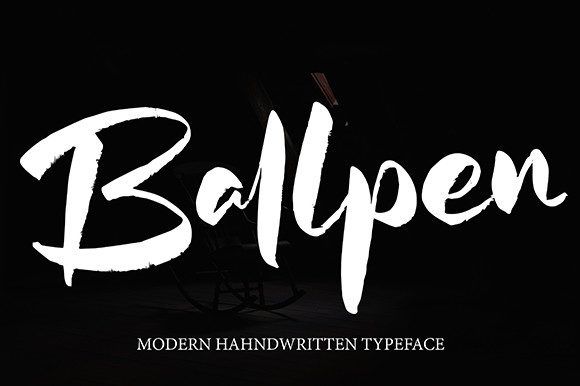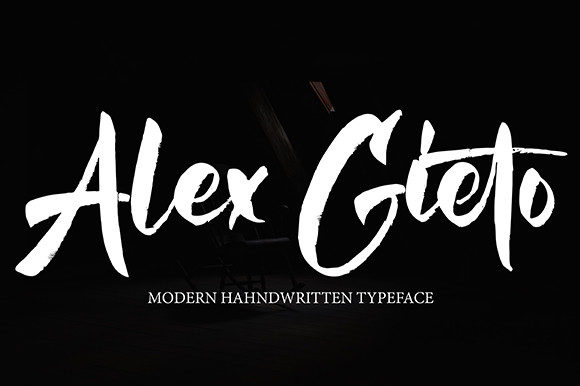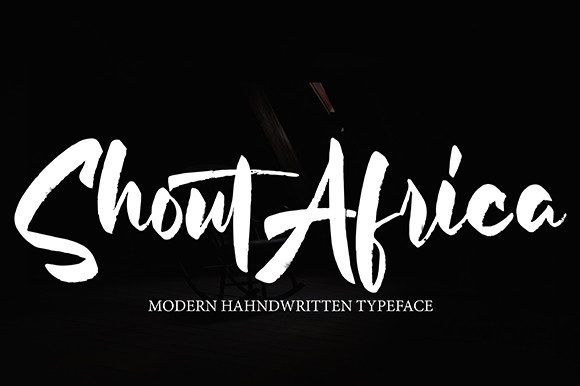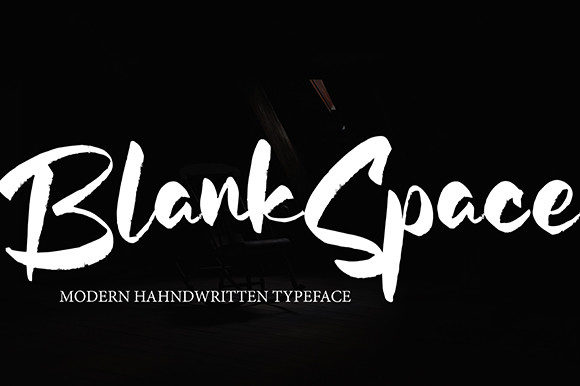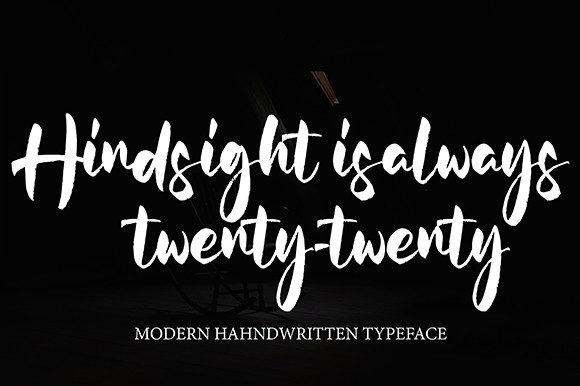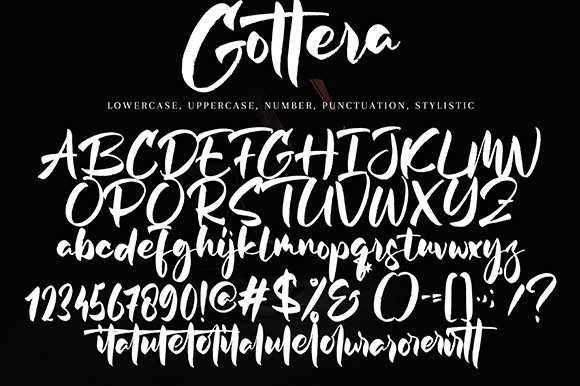
Introducing Gottera Font: The Ultimate Choice for Designers and Crafters
Are you tired of using the same old fonts in your designs? Look no further than Gottera Font, a cool, brushed, and trendy handwritten font that’s sure to take your creations to the next level. With its strong, confident, and dynamic style, Gottera Font is the perfect choice for designers and crafters looking to add a touch of personality to their work.
What Makes Gottera Font So Special?
Gottera Font is a unique and stylish font that’s designed to make a statement. Its brushed texture gives it a rough, organic feel that’s perfect for creating designs that look like they were made with love and care. Whether you’re working on a logo, a poster, or a social media graphic, Gottera Font is sure to add a touch of warmth and personality to your design.
Key Features of Gottera Font
- Cool and Trendy: Gottera Font is a modern font that’s perfect for designers who want to stay on top of the latest trends.
- Brushed Texture: The font’s brushed texture gives it a unique, organic feel that’s perfect for creating designs that look handmade.
- Strong and Confident: Gottera Font reads as strong, confident, and dynamic, making it perfect for designs that need to make a statement.
- Dynamic Style: The font’s dynamic style makes it perfect for creating designs that need to be eye-catching and engaging.
How to Use Gottera Font in Your Designs
Gottera Font is a versatile font that can be used in a wide range of designs, from logos and posters to social media graphics and more. Here are a few tips for using Gottera Font in your designs:
- Use it as a Headline Font: Gottera Font is perfect for use as a headline font, where its bold and confident style can really make an impact.
- Pair it with Other Fonts: Gottera Font pairs well with a wide range of other fonts, making it easy to create designs that are both stylish and easy to read.
- Experiment with Colors: Gottera Font looks great in a wide range of colors, so don’t be afraid to experiment and find the perfect color for your design.
Benefits of Using Gottera Font
There are many benefits to using Gottera Font in your designs, including:
- Unique Style: Gottera Font has a unique and stylish design that’s sure to set your designs apart from the crowd.
- Easy to Read: Despite its bold and dynamic style, Gottera Font is easy to read, making it perfect for designs that need to communicate a message.
- Versatile: Gottera Font can be used in a wide range of designs, from logos and posters to social media graphics and more.
Who is Gottera Font For?
Gottera Font is perfect for designers and crafters who want to add a touch of personality to their work. Whether you’re a professional designer or a DIY crafter, Gottera Font is a great choice for anyone who wants to create designs that are stylish, confident, and dynamic.
- Graphic Designers: Gottera Font is a great choice for graphic designers who want to create logos, posters, and other designs that need to make a statement.
- Social Media Influencers: Gottera Font is perfect for social media influencers who want to create eye-catching graphics that will stand out in a crowded feed.
- Crafters: Gottera Font is a great choice for crafters who want to add a personal touch to their handmade projects.
In conclusion, Gottera Font is a cool, brushed, and trendy handwritten font that’s perfect for designers and crafters who want to add a touch of personality to their work. With its strong, confident, and dynamic style, Gottera Font is sure to make a statement in any design. Whether you’re a professional designer or a DIY crafter, Gottera Font is a great choice for anyone who wants to create designs that are stylish, confident, and dynamic.